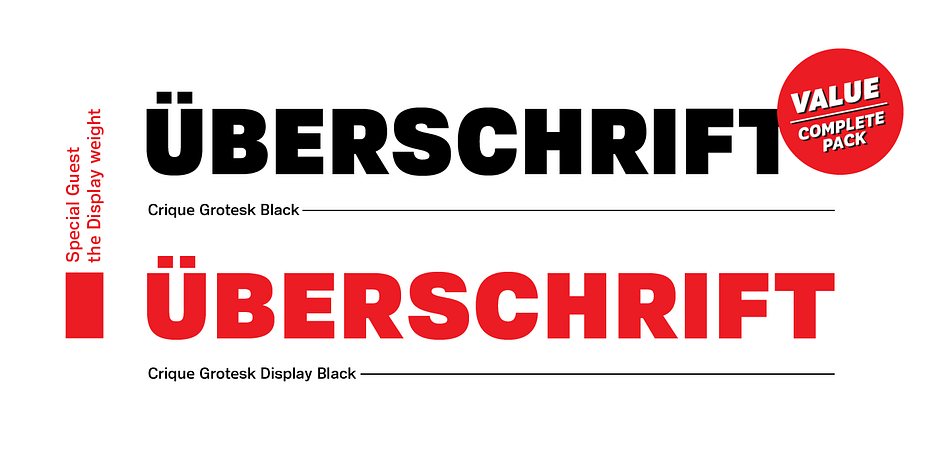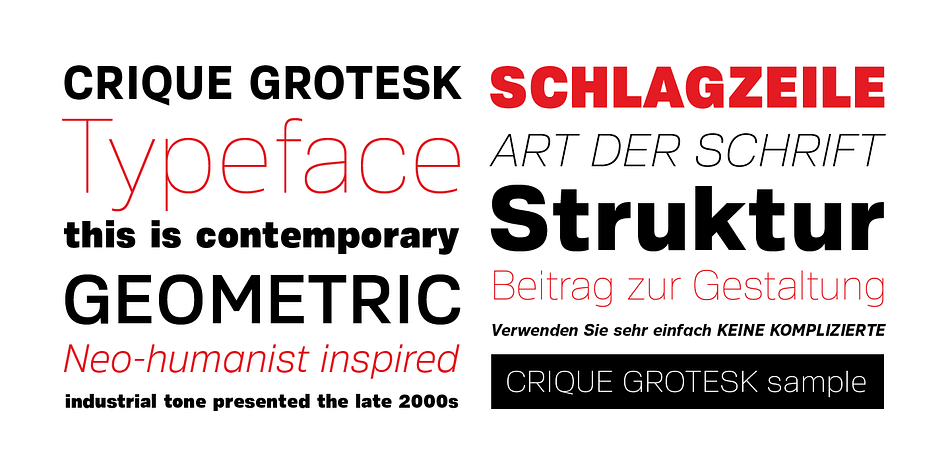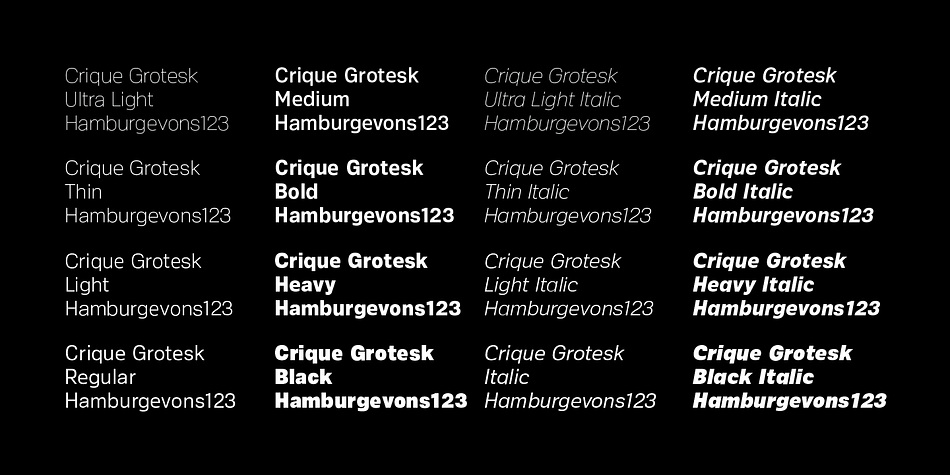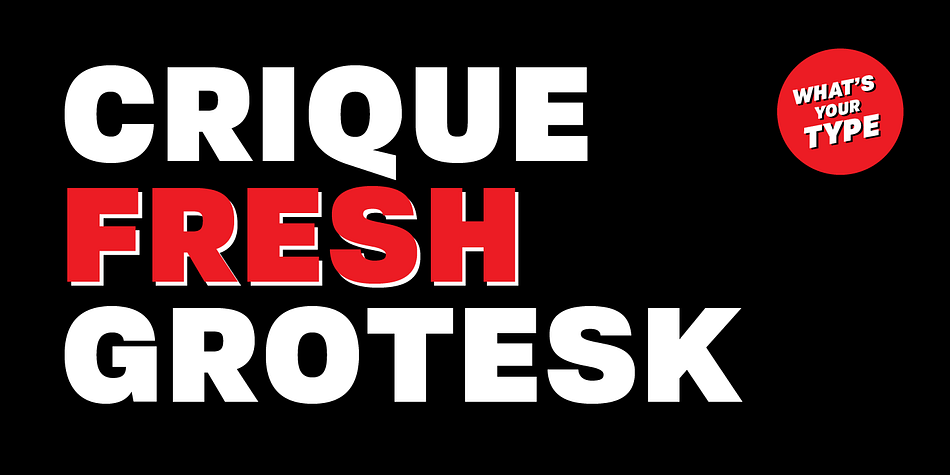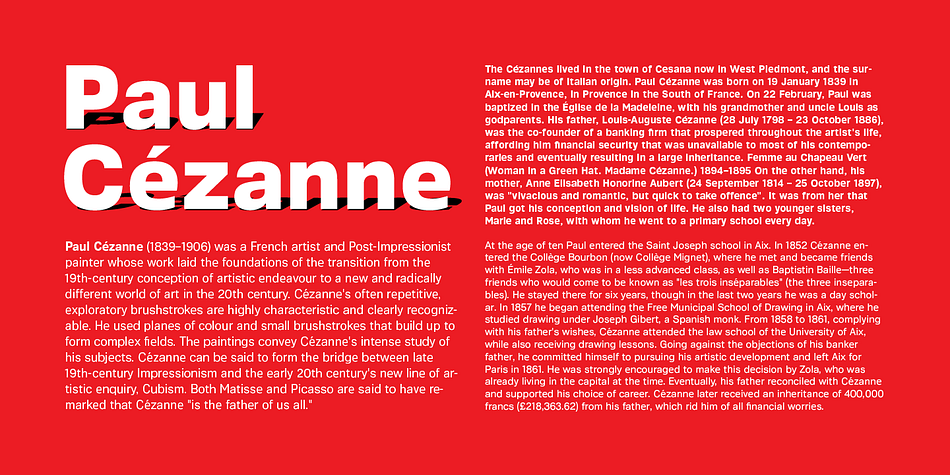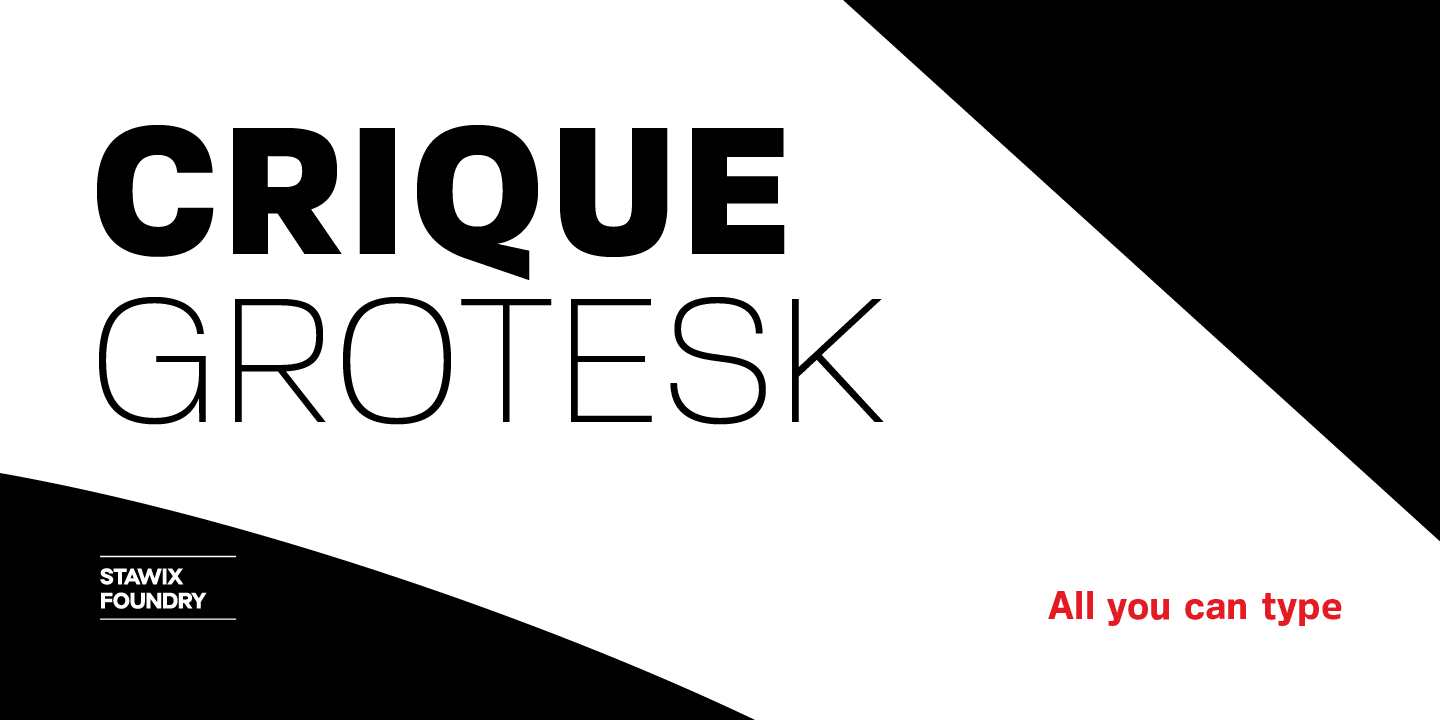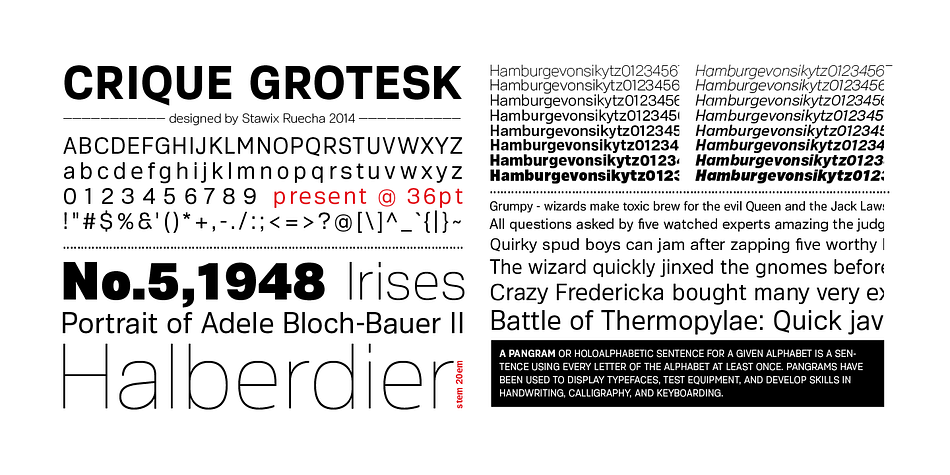
Crique Grotesk is a sans serif font family. This typeface has thirty-two styles and was published by Stawix.
The Crique Grotesk This contemporary typeface is inspired by Neo-humanist and Geometric industrial styles presented in late 2000s typefaces.
The font family is composed of both normal and display widths in order to support different design applications.